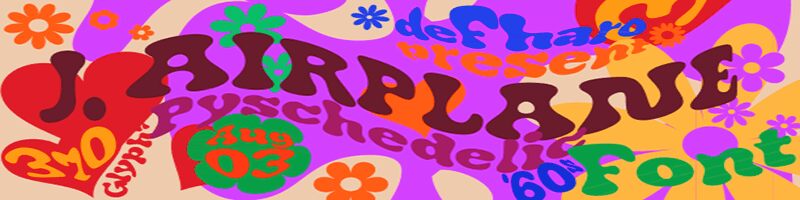
J. Airplane swash Italic
J. Airplane Swash Italic by deFharo is a free cartoon display font with a swollen, rubbery silhouette. Broad letters roll through uneven curves, with pinched joins and soft-edged openings that make the forms look molded rather than drawn. Irregular widths keep the lettering lively, informal, and slightly unruly.
Its comic buoyancy suits children's entertainment and brightly colored candy packaging, but the rolling 1970s flavor also belongs on indie music posters and festival merchandise. Blobby contours link these uses through playful, pictorial lettering.
J. Airplane is a font with swashes. Use them with lowercase letters and the following characters: [] {} # * &.
Example: J. A[irplane] Swash}
TipografÌa psicodÈlica en homenaje a los aÒos 60 y principalmente a los carteles de conciertos de mÙsica pop de la Època. Jefferson Airplane es una fuente org·nica con swashes. Dsalos en combinaciÛn con las minÙsculas: [] {} <> # * &